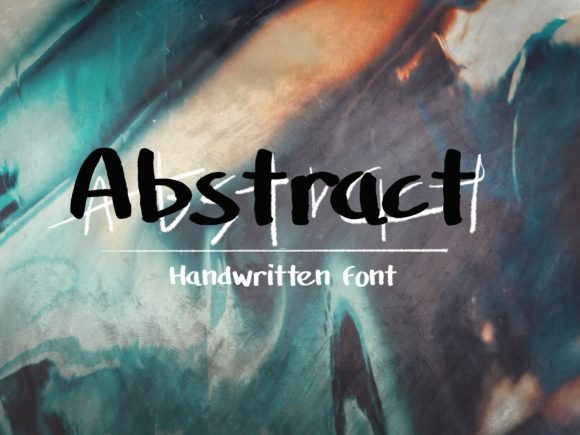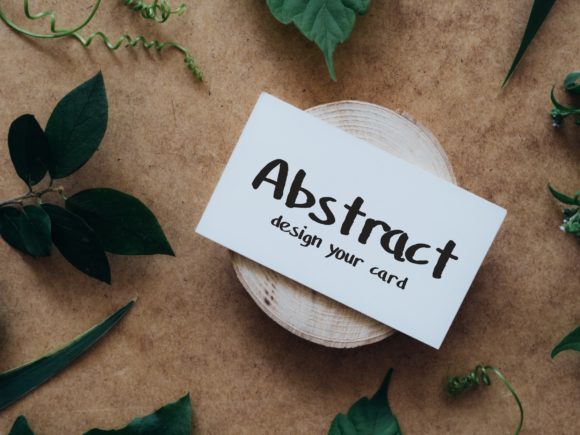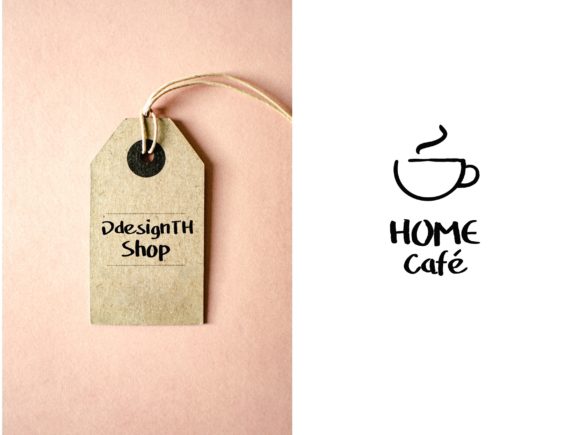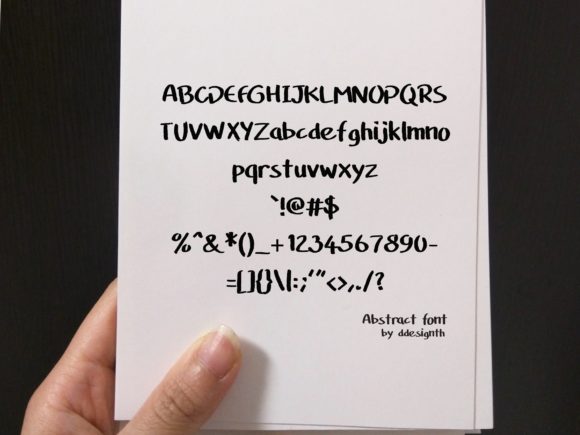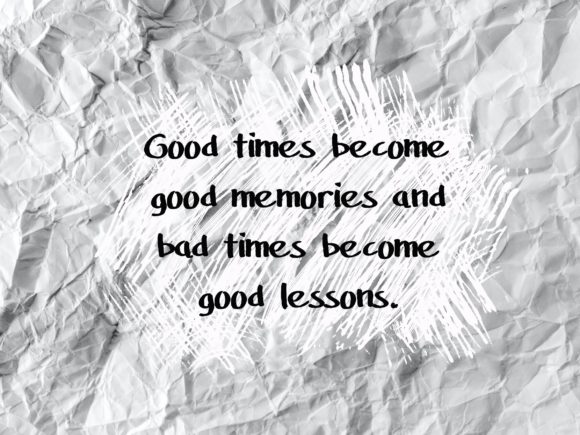
Abstract Font
About Abstract Font
Abstract is a cool and modern handwritten font that brings a balanced and varied aesthetic to your design projects. With its contemporary vibe, this font is an ideal choice for a range of products, including logos, cards, and any project where impressive typography is a key element. Abstract’s unique characteristics set it apart, adding a touch of modernity to your creative endeavors.
The cool and modern design of Abstract makes it particularly suitable for projects that demand a fresh and contemporary look. The handwritten style introduces a sense of authenticity and a personal touch to your typography, making it well-suited for a variety of applications. Whether you’re designing a logo for a cutting-edge brand or creating eye-catching cards, Abstract’s modernity ensures that it aligns seamlessly with the latest design trends.
The balance and variation in Abstract’s letterforms contribute to its versatility, allowing it to adapt to different design contexts. This makes it a go-to choice for designers who appreciate a font that can cater to a wide range of creative projects. Abstract’s ability to bring diversity to your typography enhances its suitability for logos, cards, and various other visual communication materials.
Abstract’s impressive typography capabilities make it a standout font for projects that require a bold and eye-catching visual presence. Its modern appeal ensures that your designs remain relevant and engaging, capturing the attention of your audience. Whether used in digital or print media, Abstract’s versatility shines through, making it a reliable choice for impactful and contemporary typographic solutions.
In summary, Abstract is more than just a font; it’s a design tool that embodies a cool and modern aesthetic. Its balanced and varied letterforms make it an excellent choice for logos, cards, and any project where impressive typography is a priority. Embrace the contemporary vibe of Abstract to infuse your designs with a touch of modern flair and captivate your audience with its bold and distinctive style.